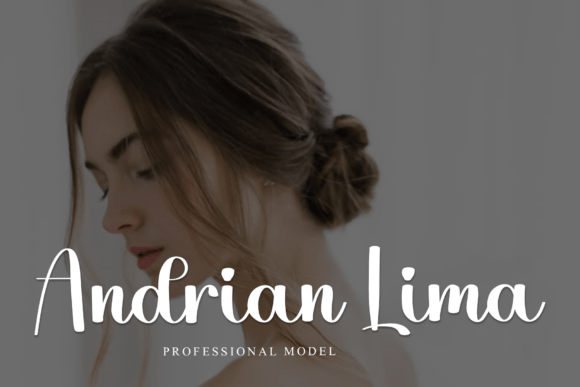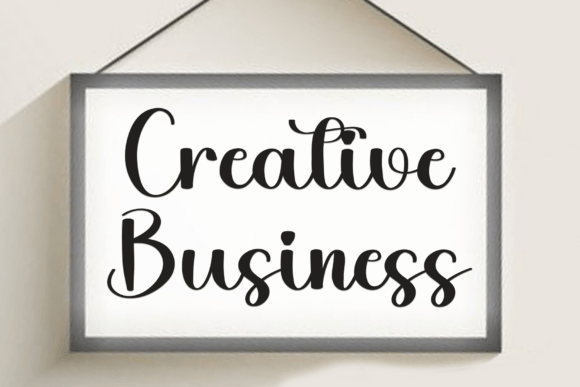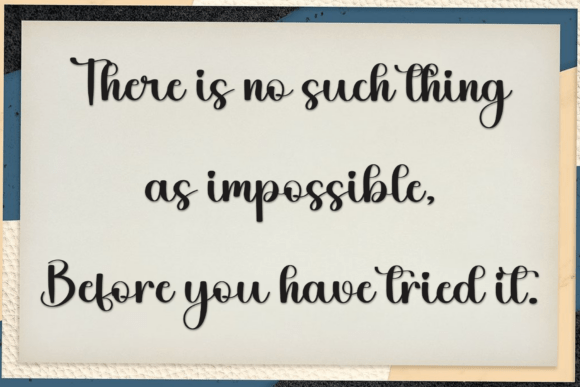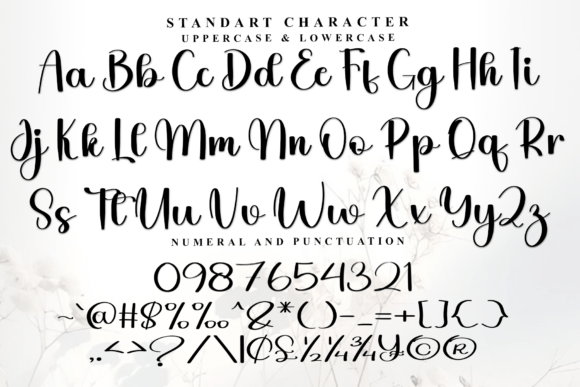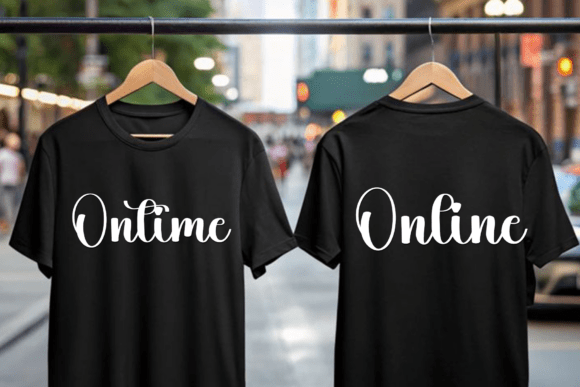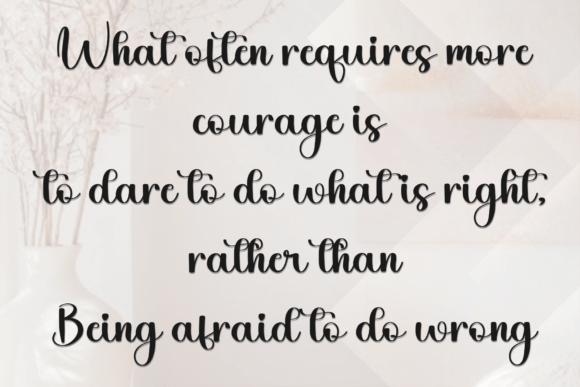
The Butter Mocktail Font: A Game-Changer for Designers and Crafters
Have you ever been in the middle of a design project, and suddenly, you’re stuck on finding the perfect font? I recall a particularly frustrating experience when a client’s brand required a unique, soft touch that screamed elegance and approachability. After scouring through countless font libraries, I stumbled upon the Butter Mocktail font. It was love at first sight! ✨
The Butter Mocktail font is a beautiful and eye-catching typeface designed with a soft, unique touch. Its distinctive strokes give it a special character, making it meaningful and versatile for future use. With various characters, it’s perfect for design projects, crafts, and other creative works.
- ✨ Unique and eye-catching design: The font’s soft touch and distinctive strokes make it stand out from more traditional typefaces.
- ✅ Versatility: It’s perfect for a wide range of design projects, from elegant branding to playful crafts.
While the Butter Mocktail font is exceptional, there are a few minor considerations to keep in mind: 🤔
- ⚠️ Limited use in very formal contexts: Due to its playful nature, it might not be the best fit for very formal or traditional designs.
- ⚠️ Requires careful pairing: As with any font, pairing it with complementary typefaces requires some thought to ensure harmony.
The Designer Inspiration Behind Butter Mocktail
The story behind Butter Mocktail’s creation is as charming as the font itself. Designed with the intention of capturing a soft, unique touch, the font’s creator aimed to produce a typeface that would add elegance and approachability to any design project. While the actual designer remains a mystery, their work has undoubtedly made a significant impact on the design community.
Q: What makes Butter Mocktail unique?
A: The font’s soft, unique touch and distinctive strokes set it apart from more traditional typefaces.